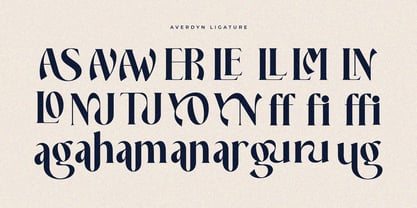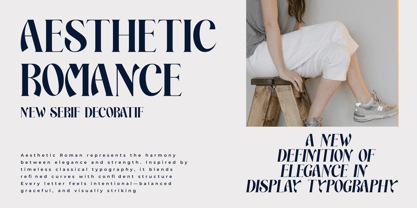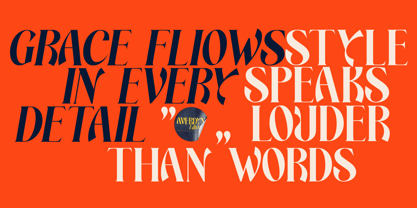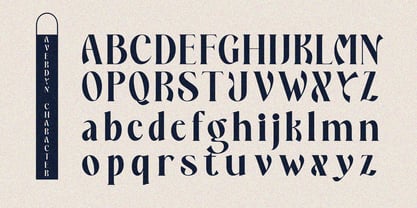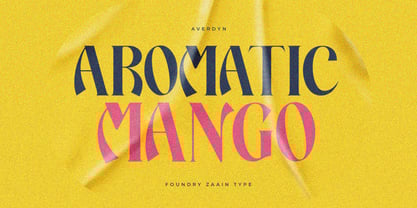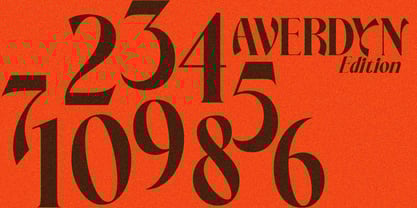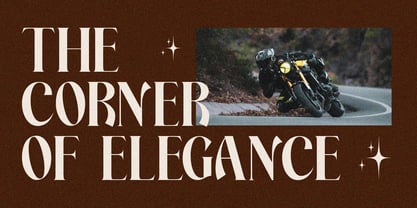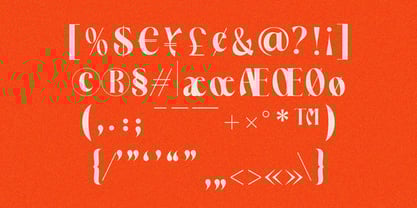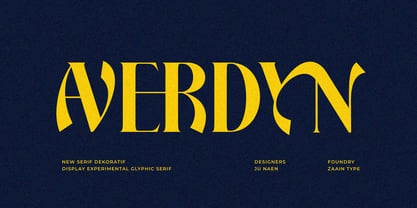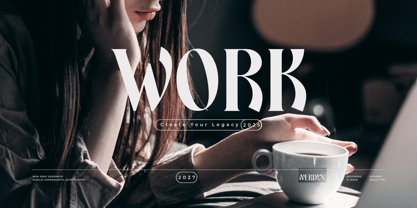
Averdyn
by Zaain Type
The Averdyn Font Family was designed by Ju Naen and published by Zaain Type. Averdyn contains 2 styles and family package options.
Averdyn is a decorative display typeface with a bold, artistic personality. Each letter is crafted with distinctive details, combining modern aesthetics with an elegant visual presence. Averdyn works beautifully for logos, branding, packaging, editorial designs, posters, and any headline that needs a striking, expressive look. Its confident shapes and subtle decorative accents make Averdyn stand out while still maintaining excellent legibility. This font is the perfect choice for designers seeking a unique display typeface with a premium and memorable character